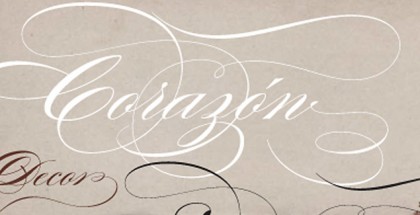
Scriptina Pro free font
Scriptina Pro free font is an elegant serif by Fredrick “Apostrophe” Nader.
Following the improvement of the font, it is now one of the most popular among free fonts.
After first cleaning up the outlines, spacing and kerning, Scriptina Pro free font has been expanded with a set of alternate letters without the loops and swashes, using the OpenType contextual alternates feature to switch them around automatically to avoid too many overlapping and repeating elements. You can also manually turn off the loops and swashes with the OpenType titling and swash features respectively. The originals alternate letters have been incorporated as stylistic alternates (and stylistic set 02) and the ligatures as discretionary ligatures if you should want them. The alternate non-script lowercase z is programmed as stylistic set 01.